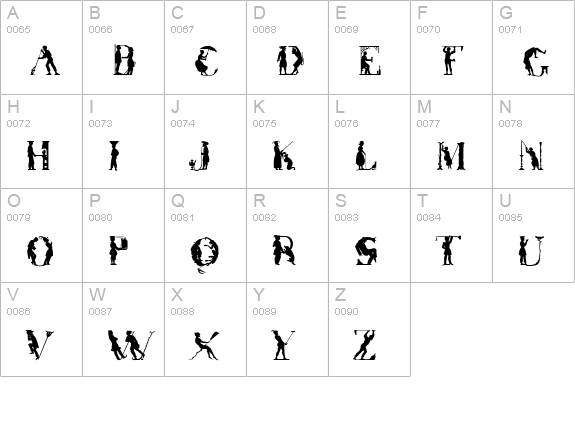
CgVictorianSilhouette Font Details
CgVictorianSilhouette font exudes elegance and sophistication with its intricate Victorian-inspired silhouette designs. This unique font captures the essence of the Victorian era, making it perfect for adding a touch of vintage charm to your projects. Whether you're creating invitations, posters, or branding materials, CgVictorianSilhouette font will surely make a statement. The ornate details and delicate lines of CgVictorianSilhouette font will transport your designs back in time, giving them a timeless and classic appeal. Its versatility allows it to be used for a wide range of projects, from wedding stationery to logo designs. Best of all, CgVictorianSilhouette font is available for free download at FontsMarket.com. So go ahead and add a touch of Victorian elegance to your designs with this stunning font.